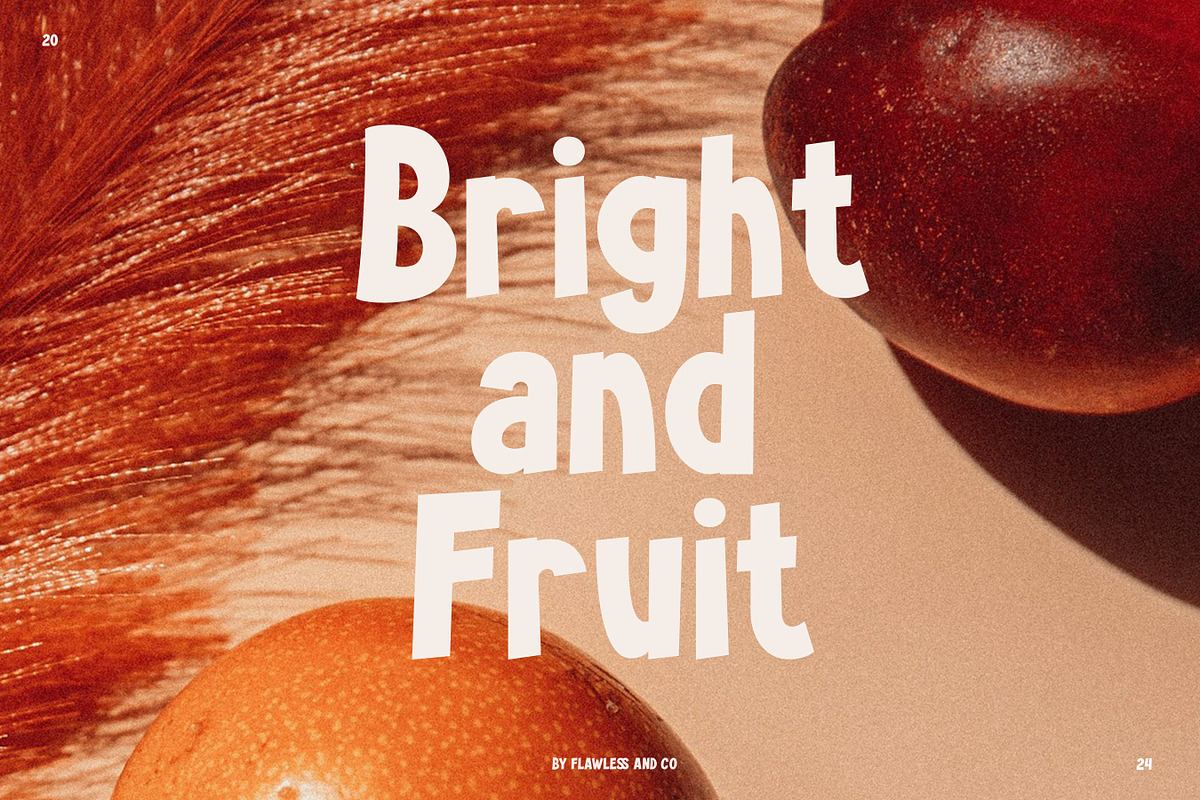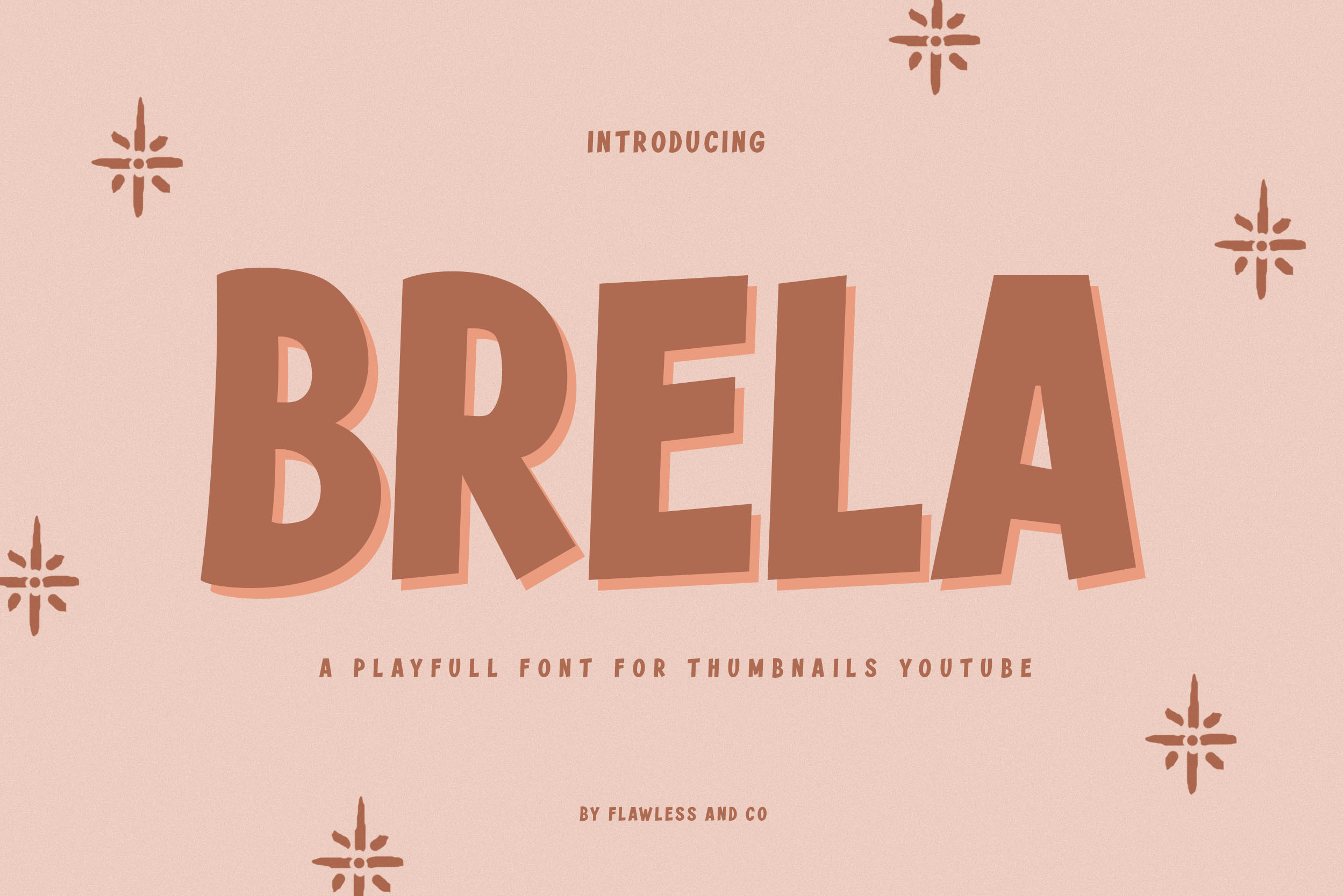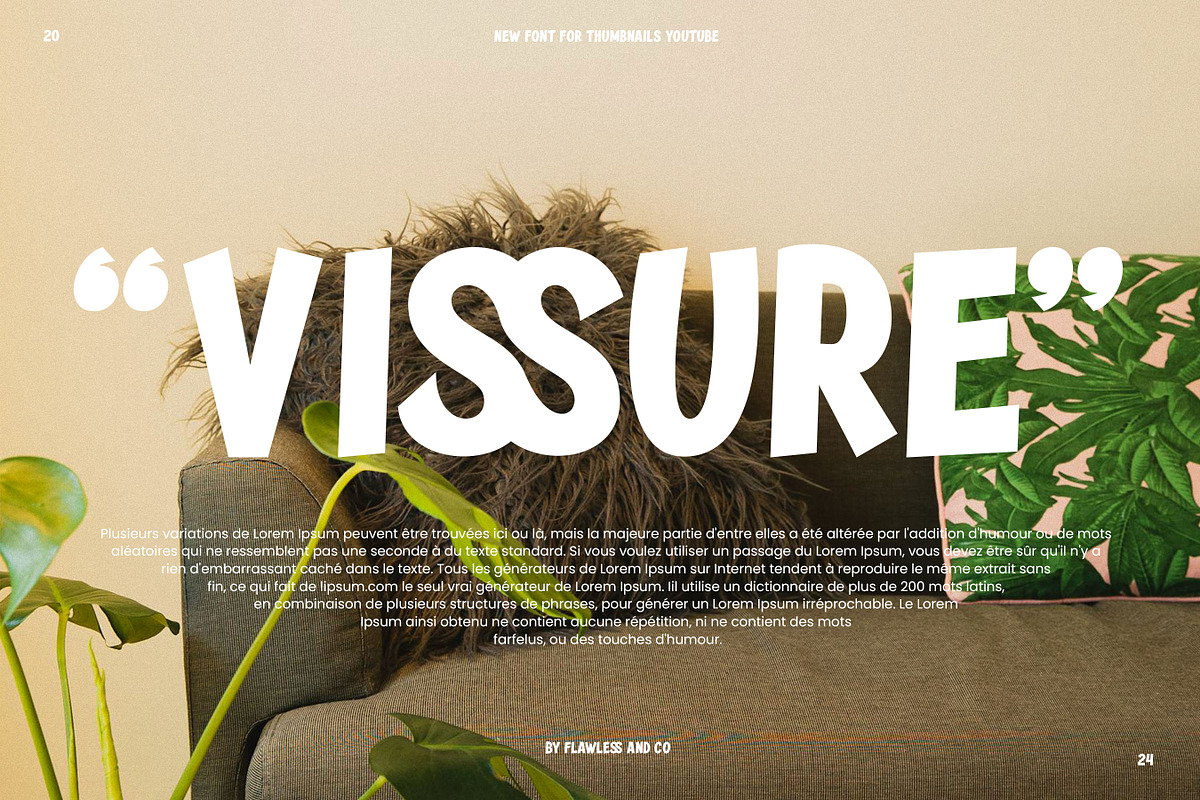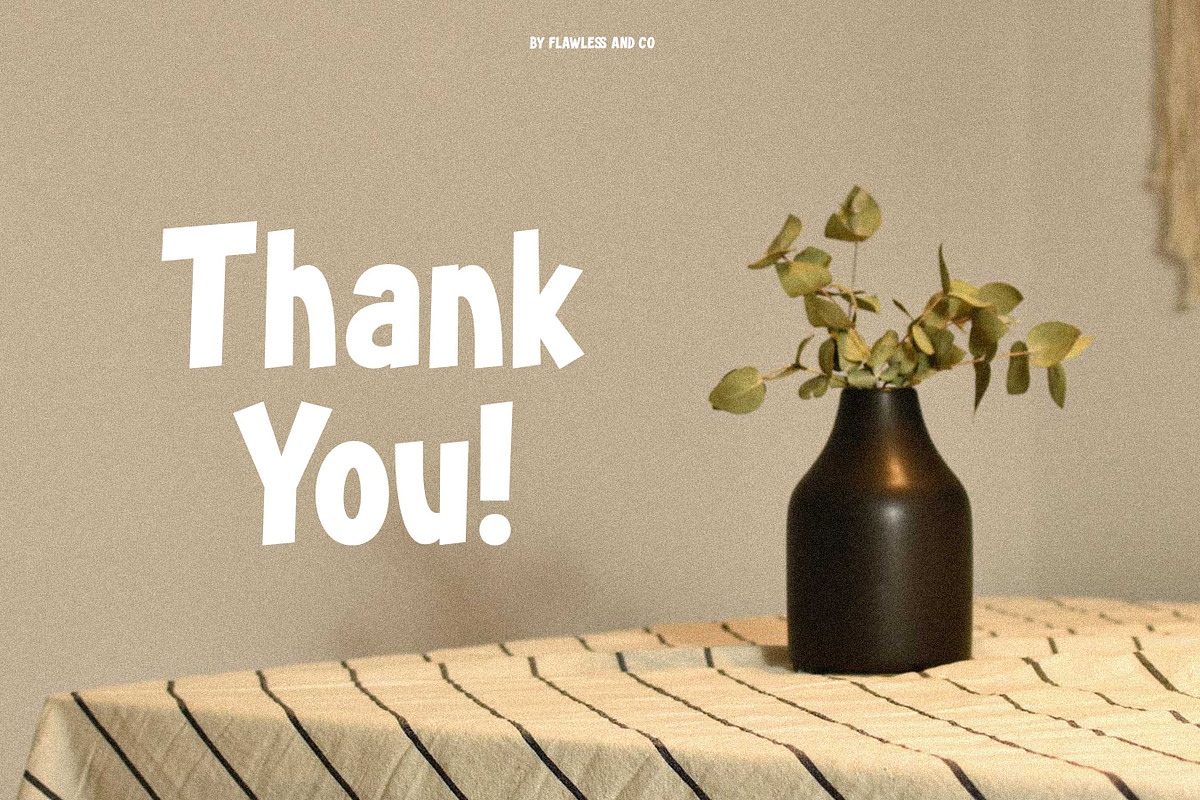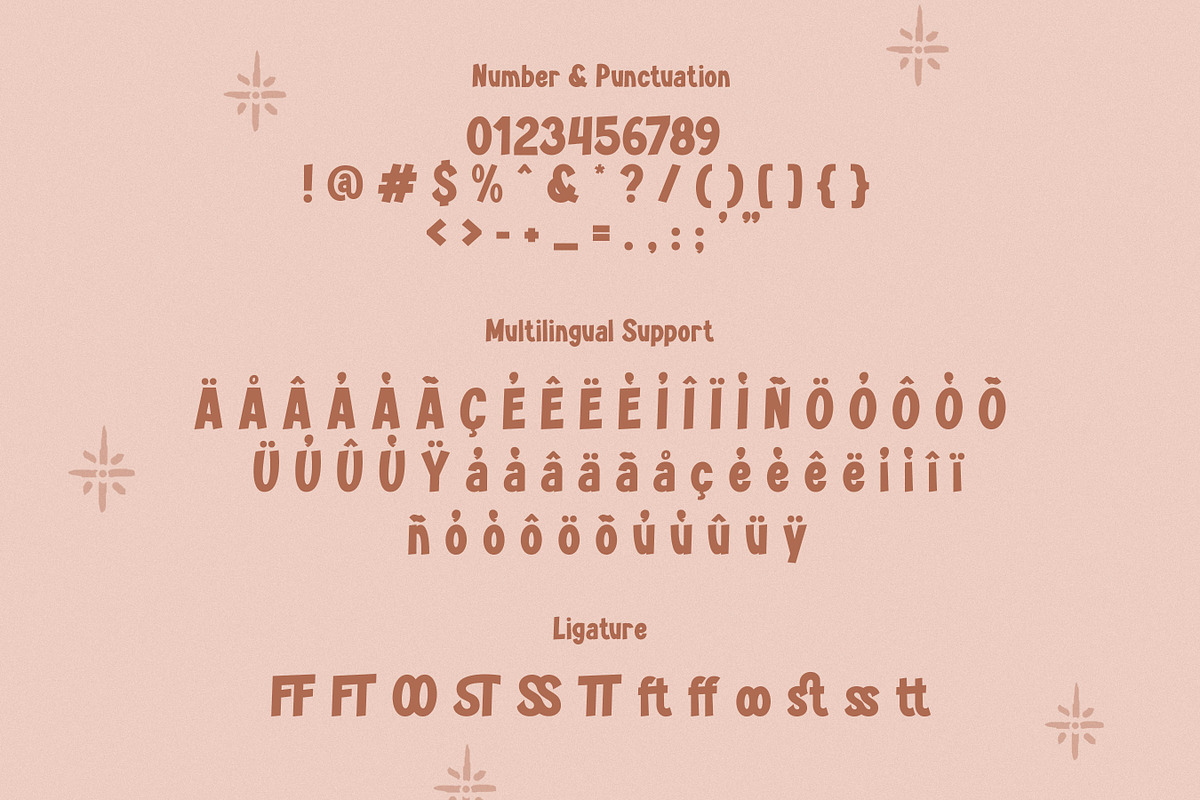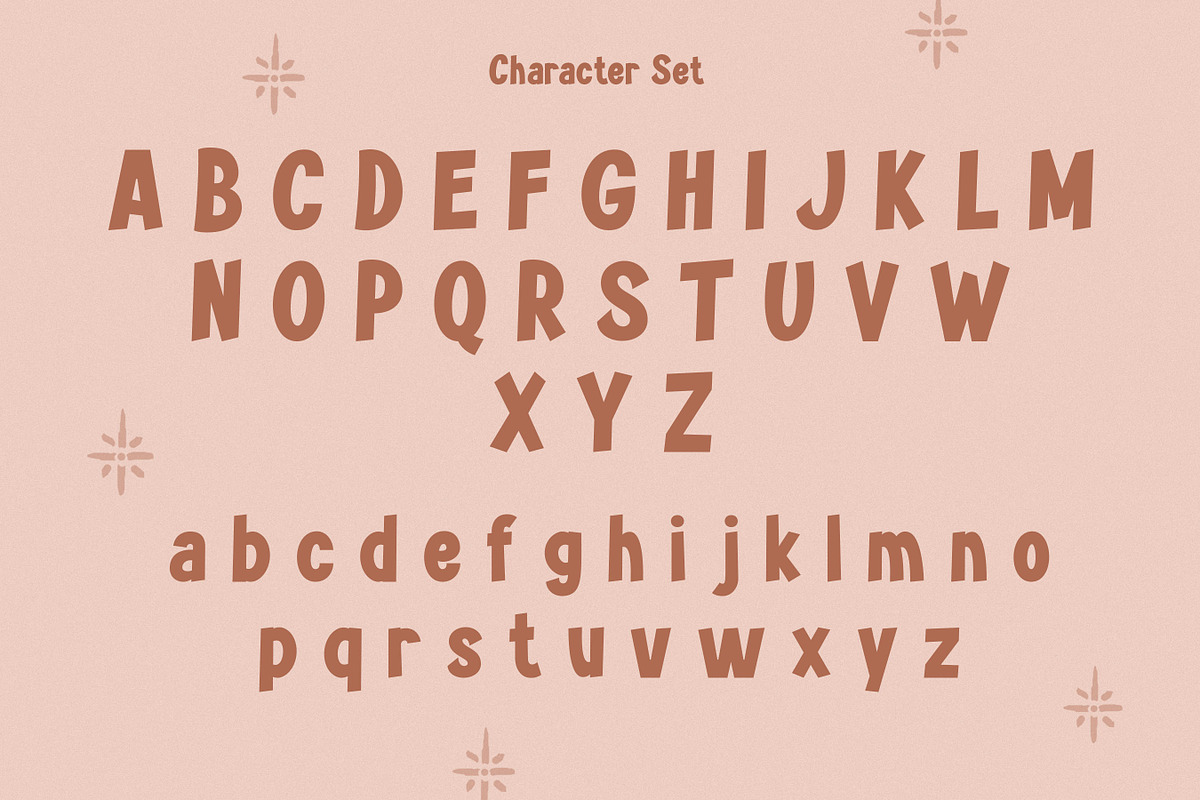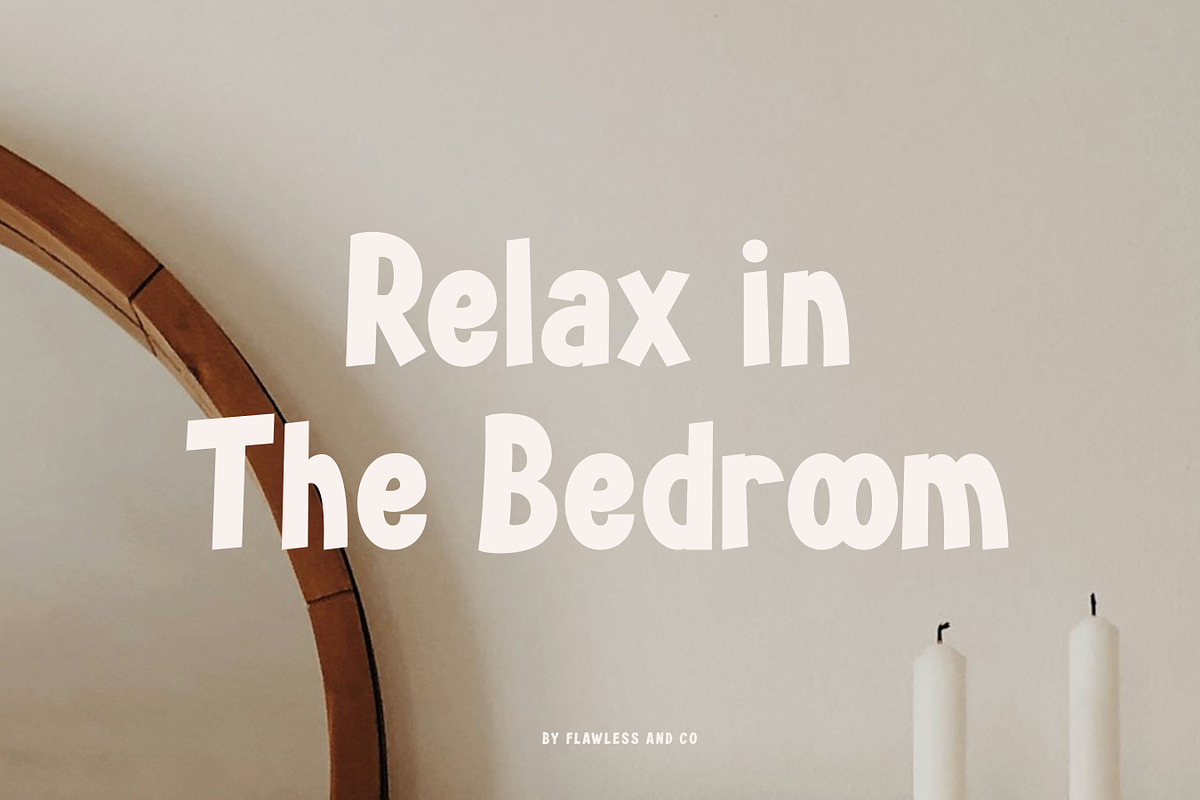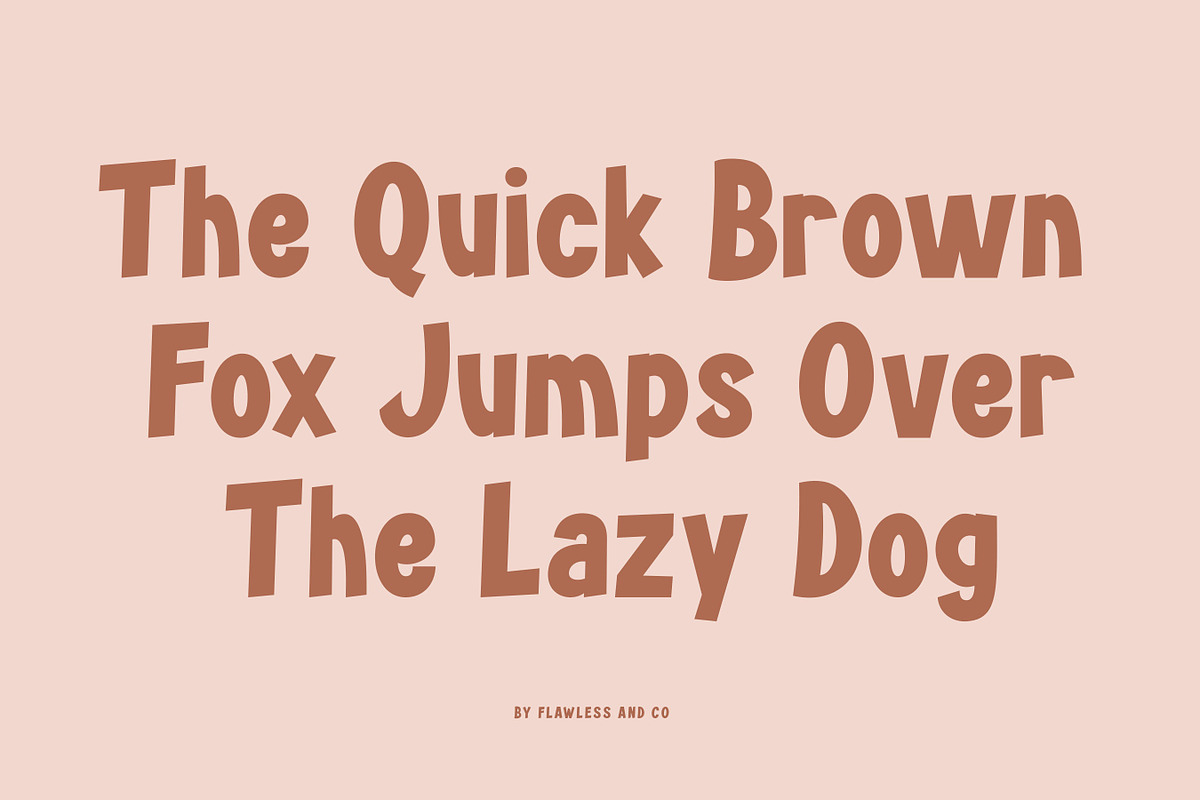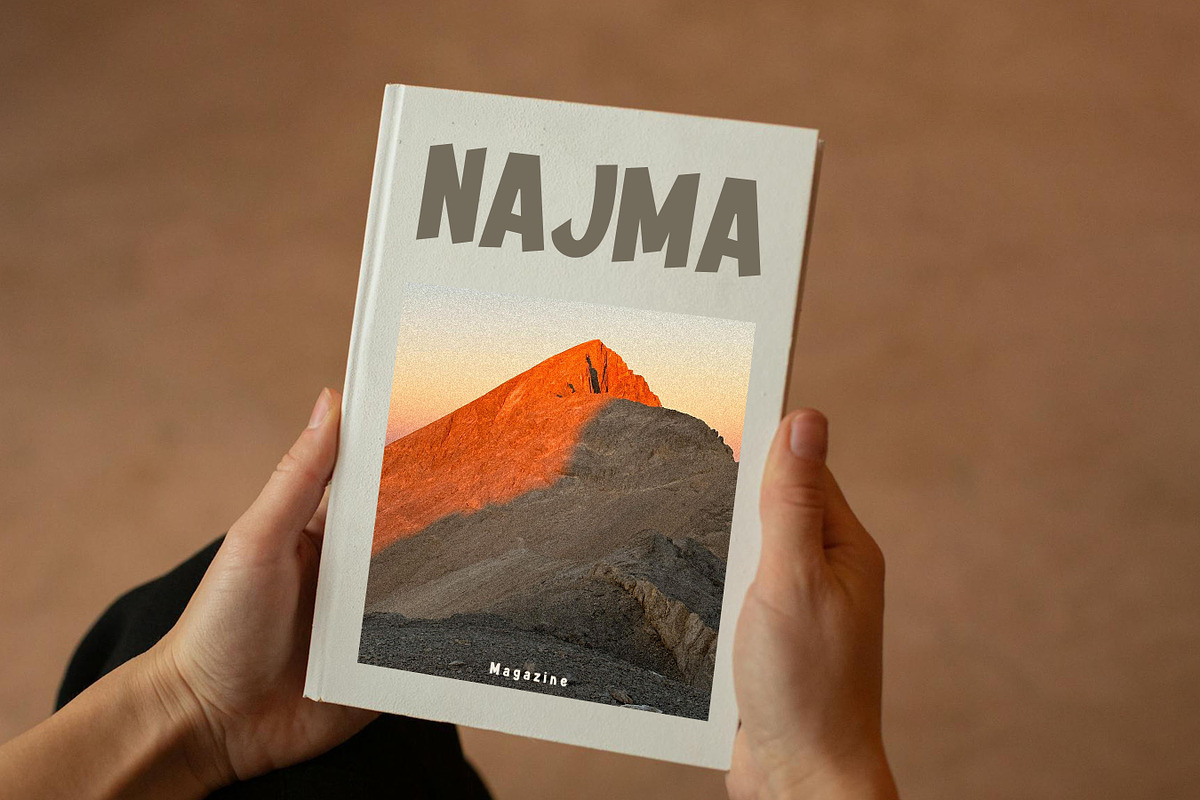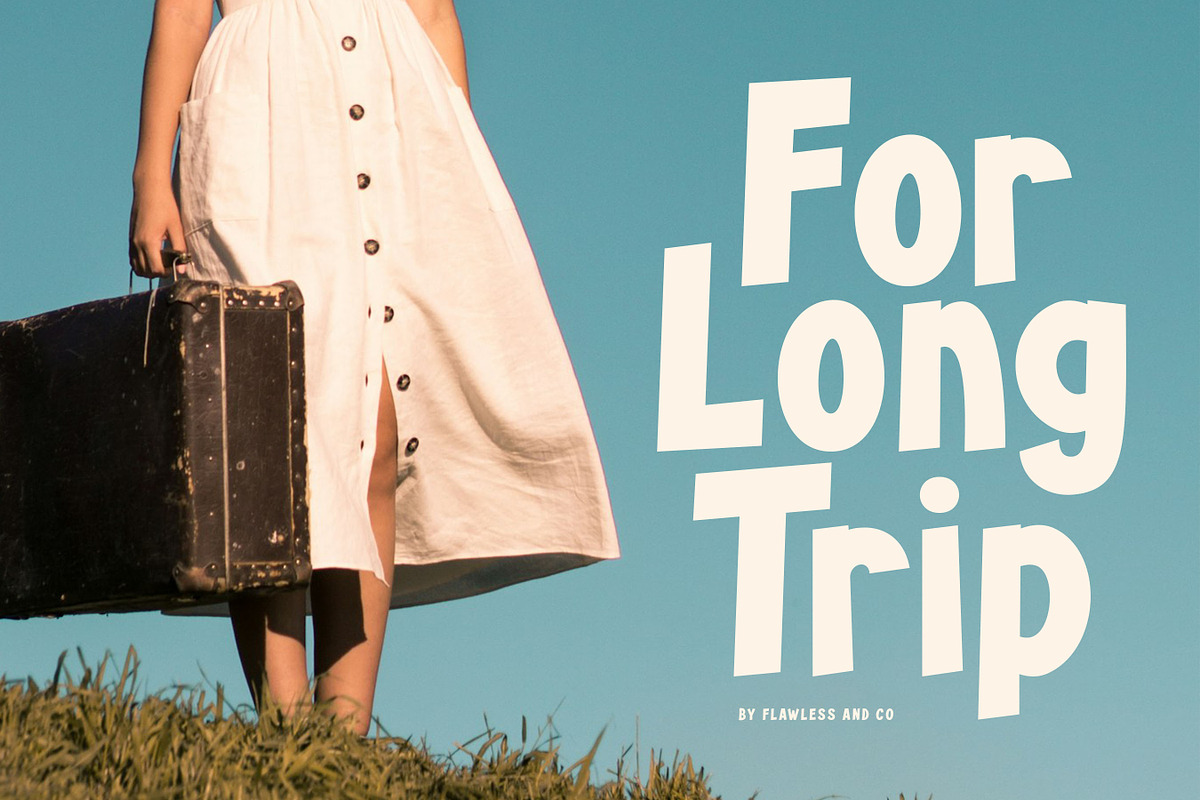
Brela - Thumbnail YouTube Font
Introducing Brela, a bold and captivating sans-serif font designed to make your YouTube thumbnails stand out from the crowd. With its clean lines and geometric structure, Brela exudes a sense of modernism and professionalism, perfectly complementing a wide range of YouTube content. This font is suitable for any graphic designs such as branding materials, Thumbnails YouTube, video content, print, business cards, logos, posters, t-shirts, photography, quotes .etc